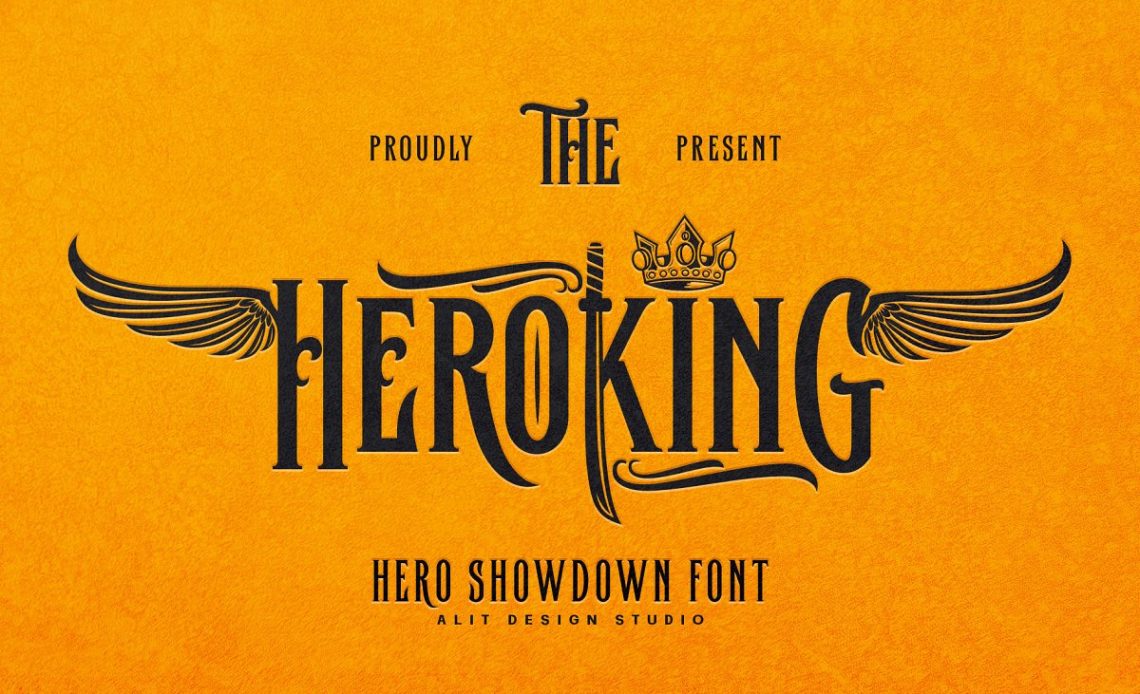
Introducing the powerful and captivating ⚔�The Hero King Typeface⚔� by alitdesign. This font is specifically designed for those who want to make a bold statement with their designs. Inspired by action movie posters with a theme of war or knights in the night knight, The Hero King Typeface is the perfect choice for creating hero movie titles, game titles, logotypes, Halloween themes, and even t-shirt designs with a heroic touch.
With its strong and bold characters, The Hero King Typeface instantly grabs attention and adds a touch of grandeur to any project. But that's not all - this font also offers a variety of alternatives, including swashes and symbols that are inspired by heroes and war. These unique features allow you to unleash your creativity and create truly captivating designs that stand out from the crowd.
With a total of 1052 glyphs, including symbols and multilingual support, The Hero King Typeface offers endless possibilities for your designs. Whether you're creating content in Latin, Basic, Western European, Central European, South European, or Vietnamese languages, this font has got you covered.